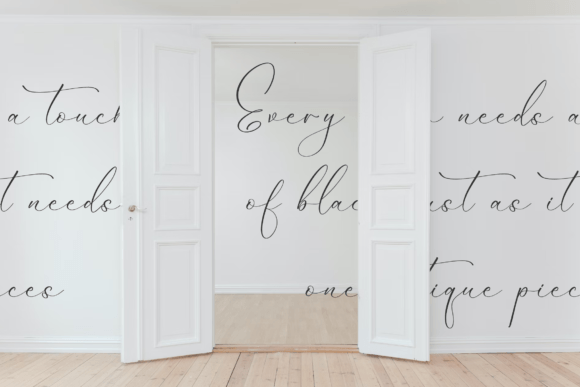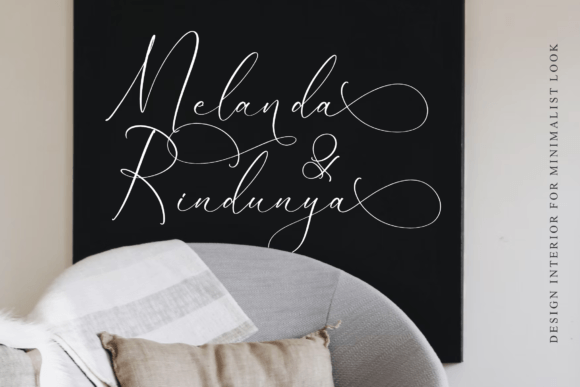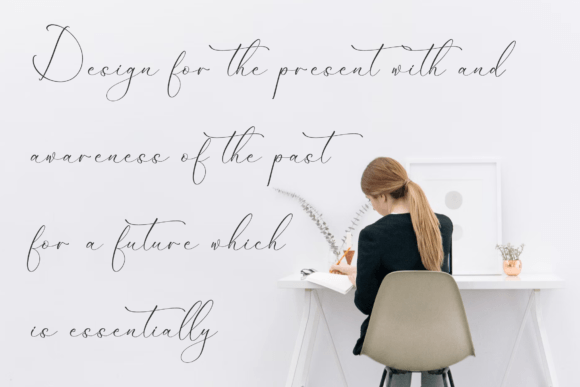
Dilanda Merlinmota – Beautiful Script Font.
A luxury script has its own unique style & modern look This typeface is perfect for an elegant & luxury logo, book or movie title design, fashion brand, magazine, clothes, lettering, quotes, and so much more.